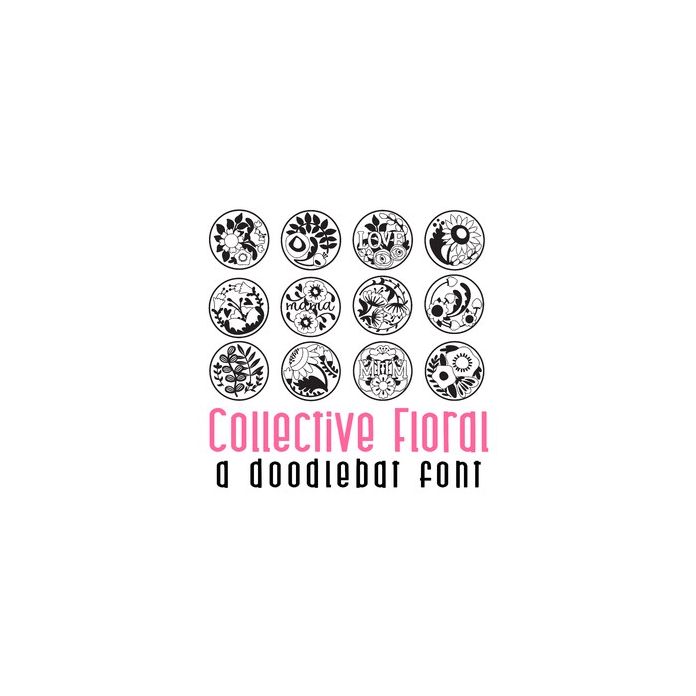
This pretty doodlebat font features 26 floral, embellished circle graphic stickers. Perfect for cards, crafts, gifts, planner stickers, scrapbook pages, decor, classrooms, Mother's Day and more!